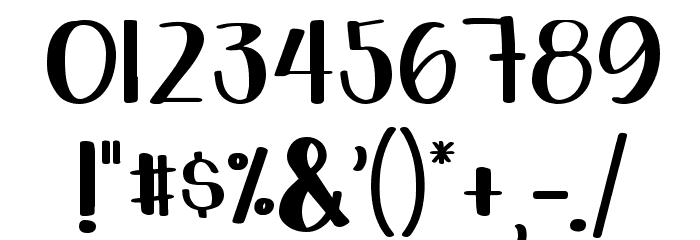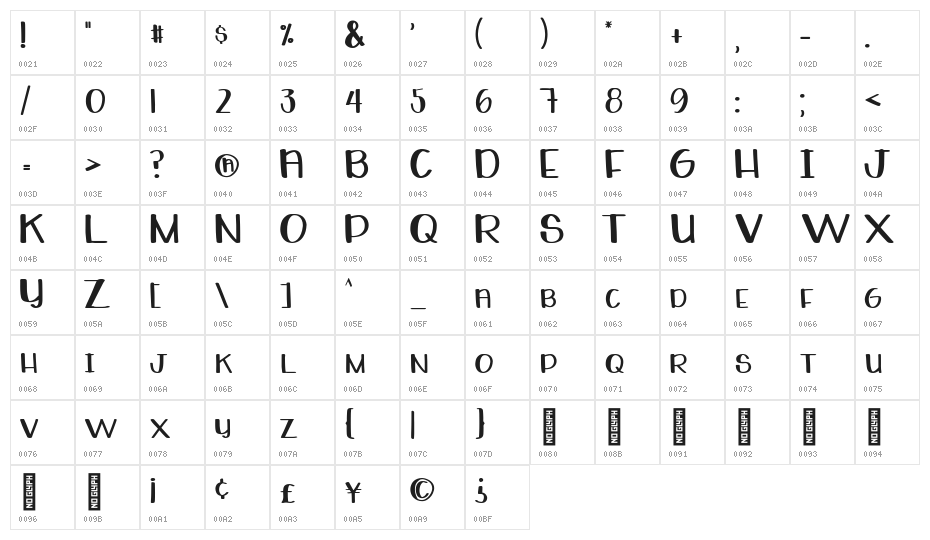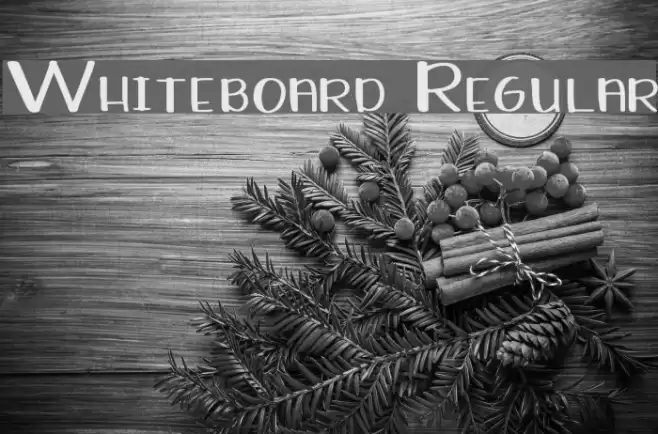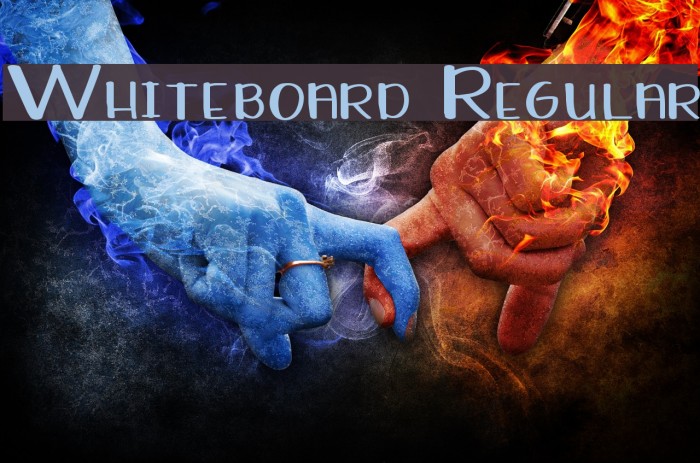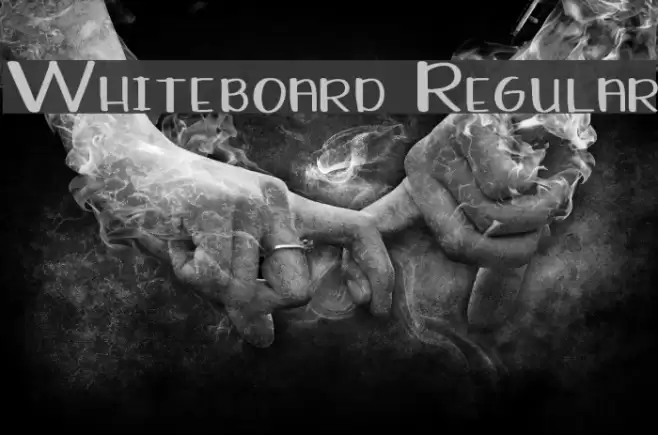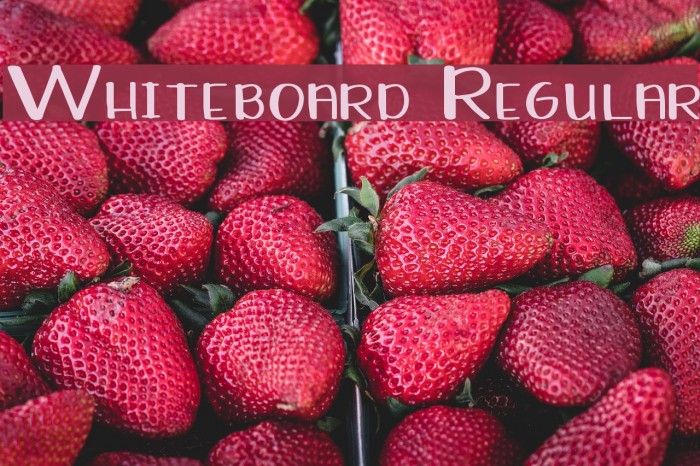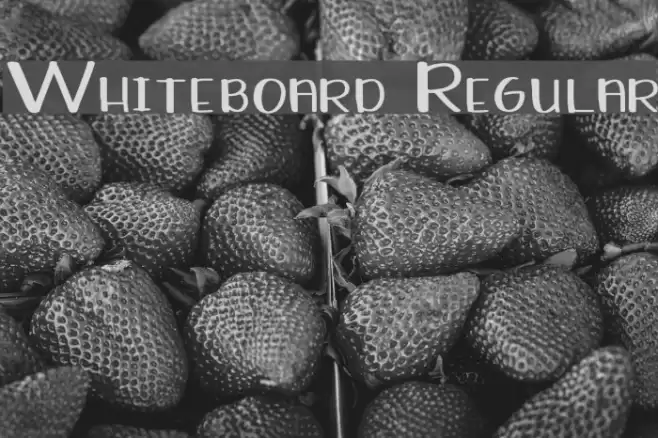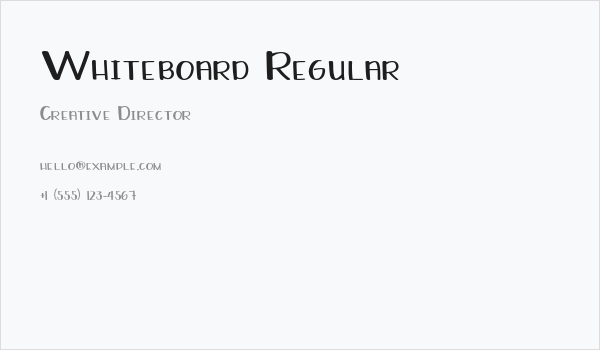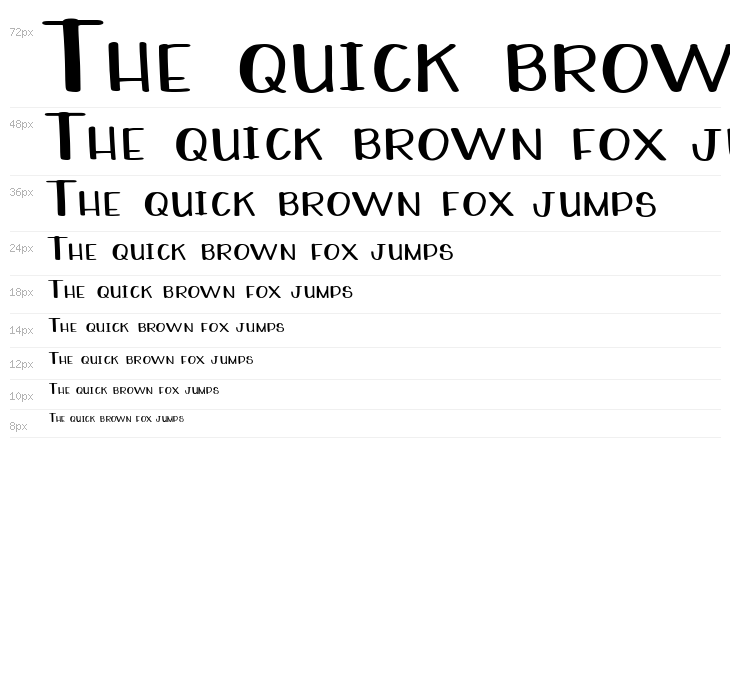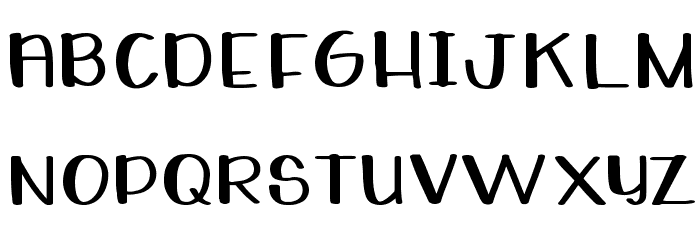
Whiteboard Regular Font
Whiteboard Regular Description
This font exhibits a playful and informal style, characterized by its hand-drawn appearance. The letters have a slightly uneven baseline, giving them a casual and approachable feel. The strokes are bold and rounded, with a consistent thickness that adds to the font's friendly and inviting nature. The characters are well-spaced, ensuring readability while maintaining a whimsical charm. This font is versatile, suitable for projects that require a personal touch or a creative flair.
| Proposed Projects | Ideal for children's books, greeting cards, playful branding, and creative posters. |